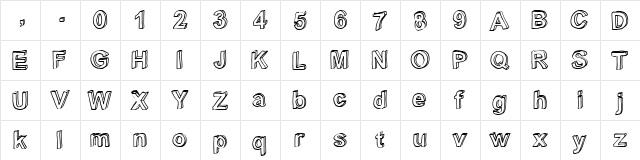
C rial Regular Font Preview
C rial Regular
C rial Regular Font Details
| Foundry | J O E B O B graphics |
| Designer | J O E B O B graphics |
Design Context for C rial Typeface
C rial is a composed and adaptable typeface that performs quietly and consistently across a wide range of design contexts.